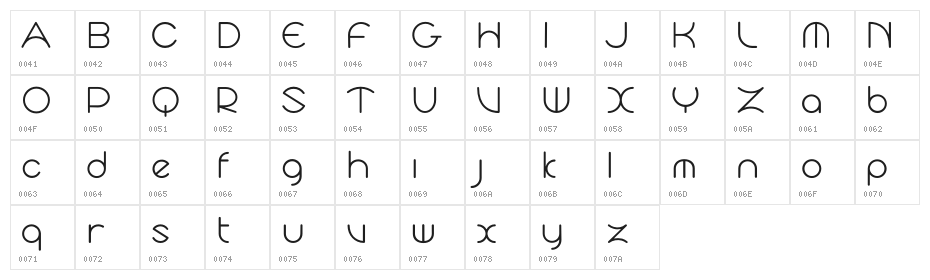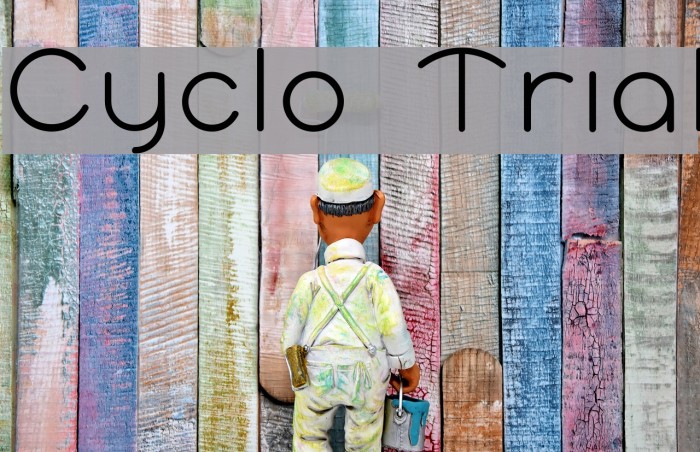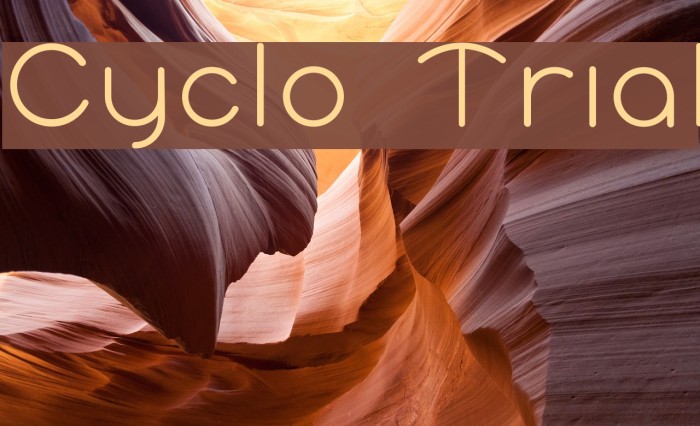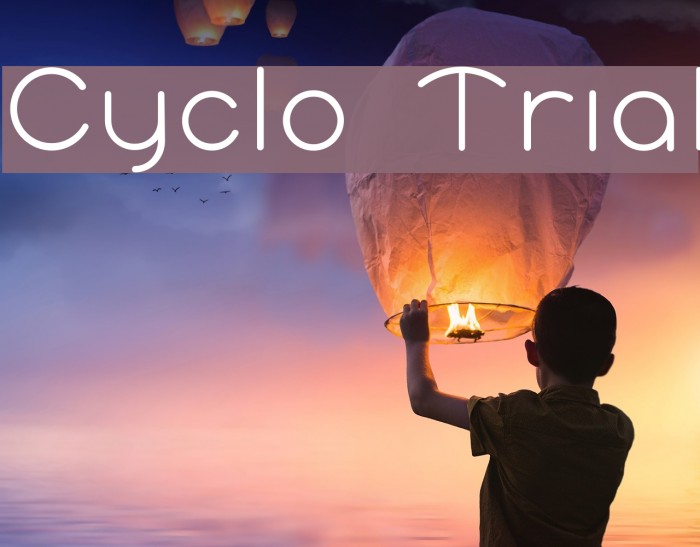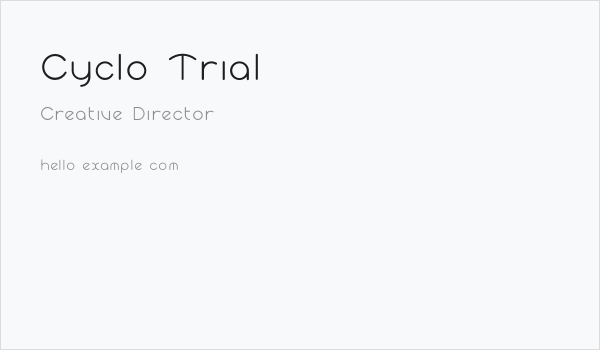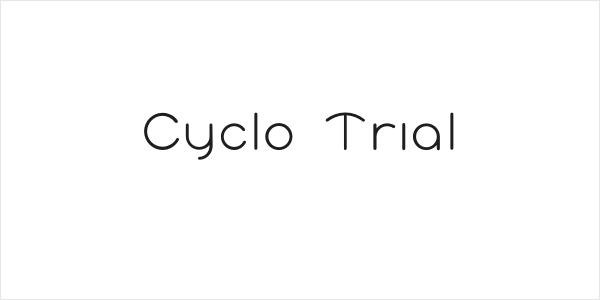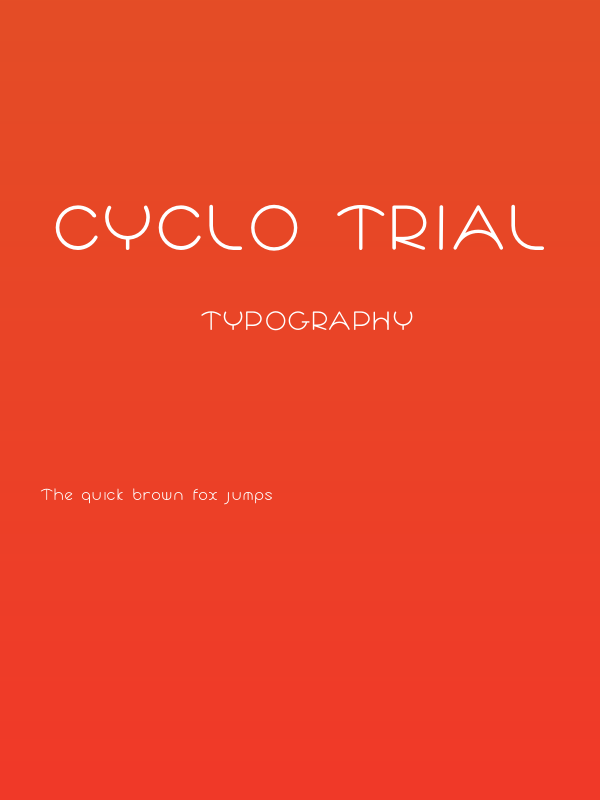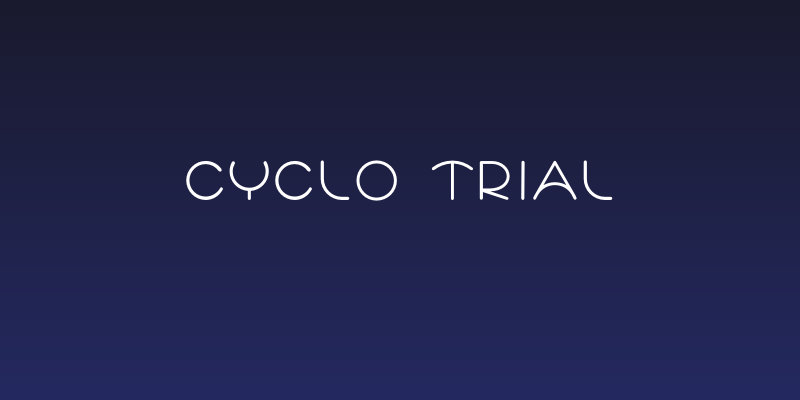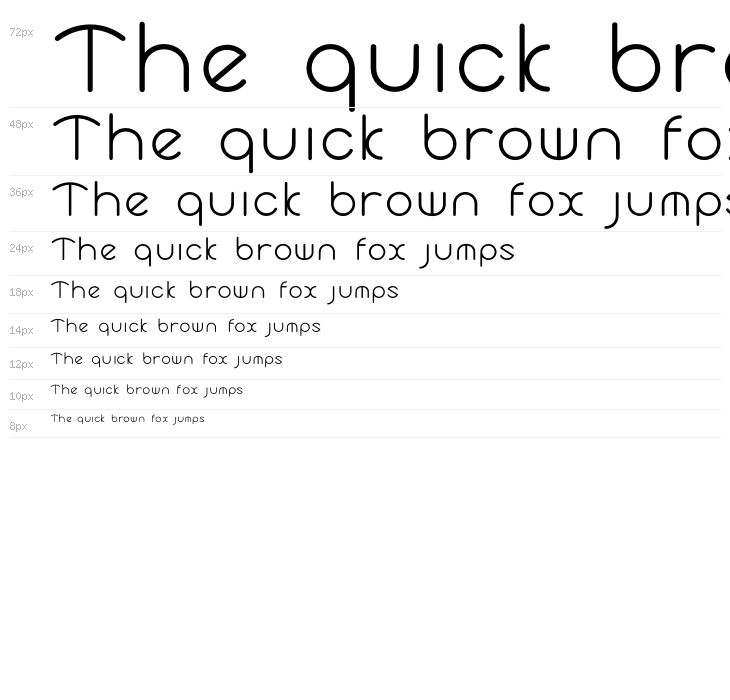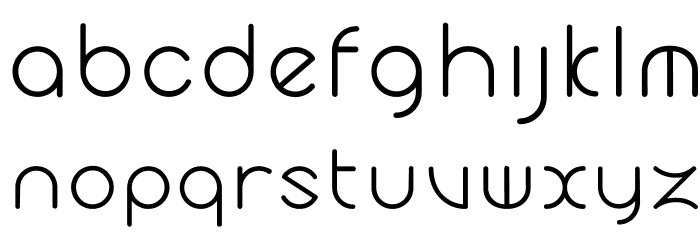
Cyclo Trial Font
Cyclo Trial Description
This font features a modern, geometric design with clean lines and a minimalist aesthetic. The characters are crafted with a consistent stroke width, giving it a uniform appearance. The uppercase letters are distinct with rounded edges and a slight futuristic feel, while the lowercase letters maintain a similar style, enhancing readability. The numbers and special characters are designed to match the overall sleek and contemporary look of the font. Its simplicity and elegance make it versatile for various design applications.
| Use Case | Logos, Headlines, Digital interfaces |
| Proposed Projects | Ideal for branding, logos, digital interfaces, and modern print media. |